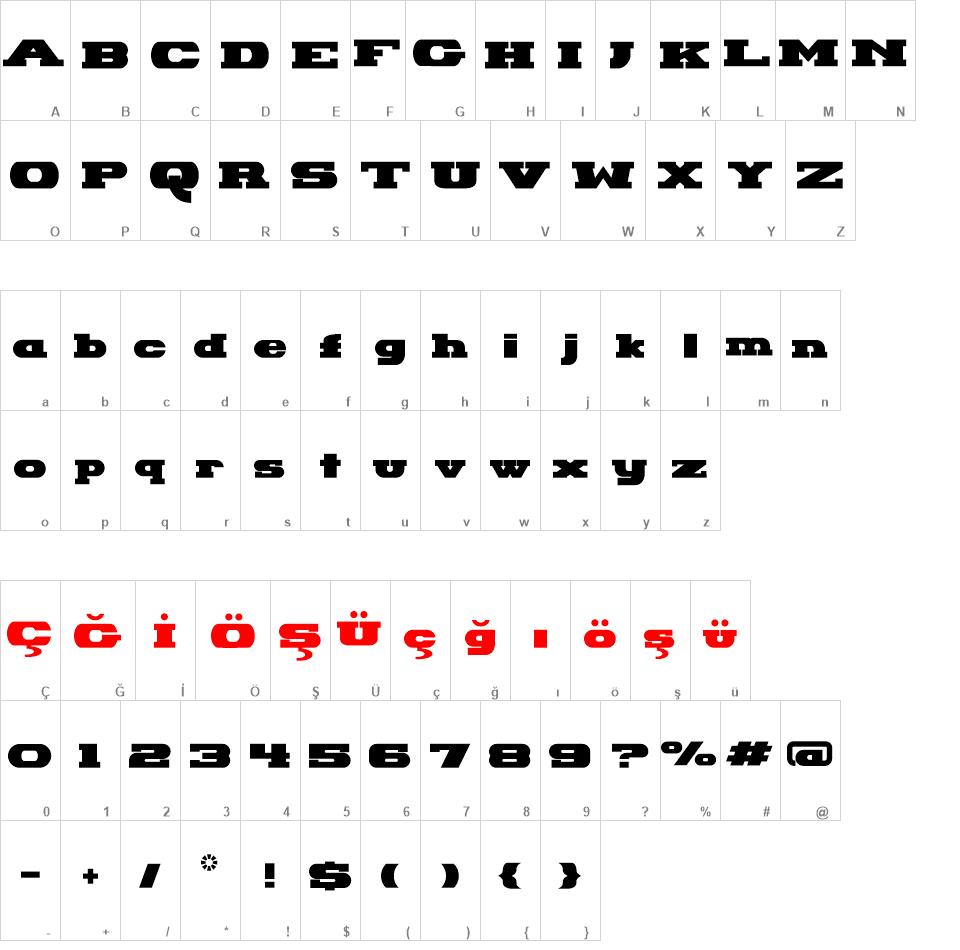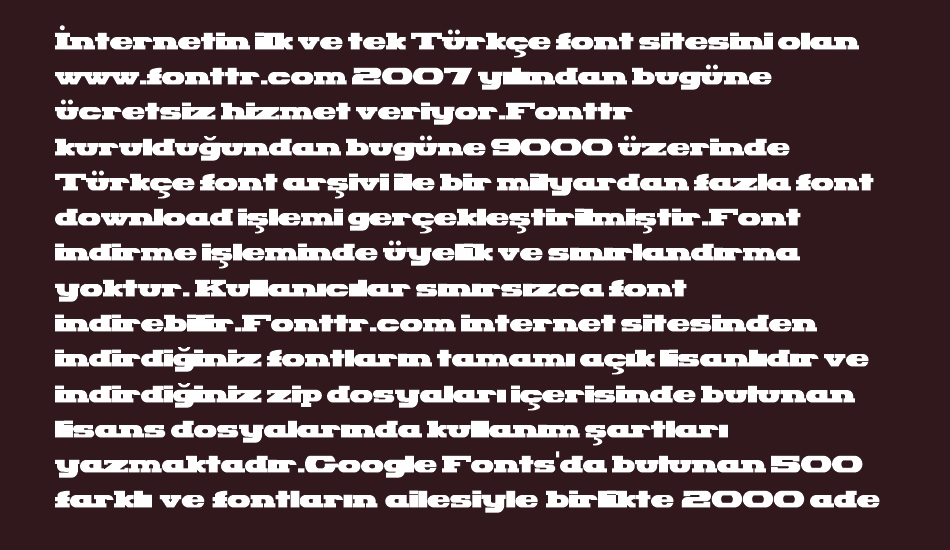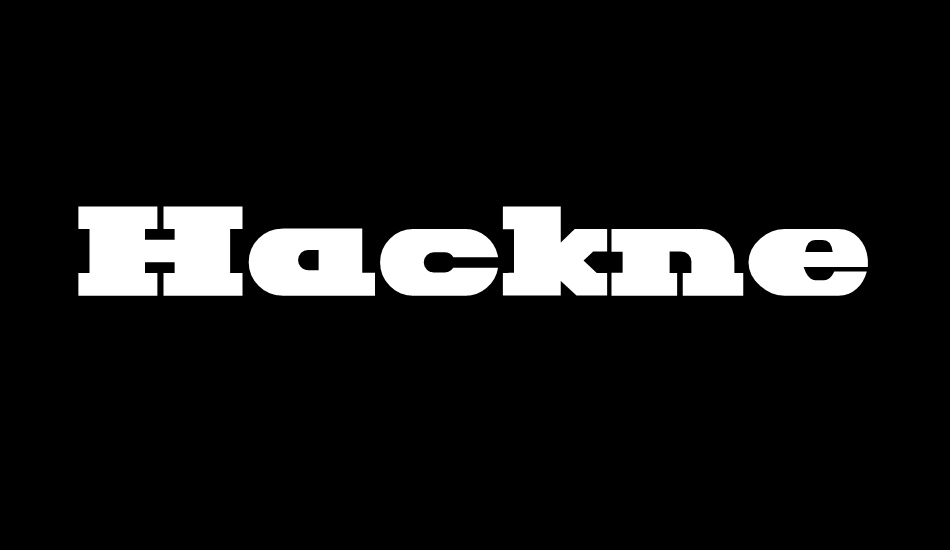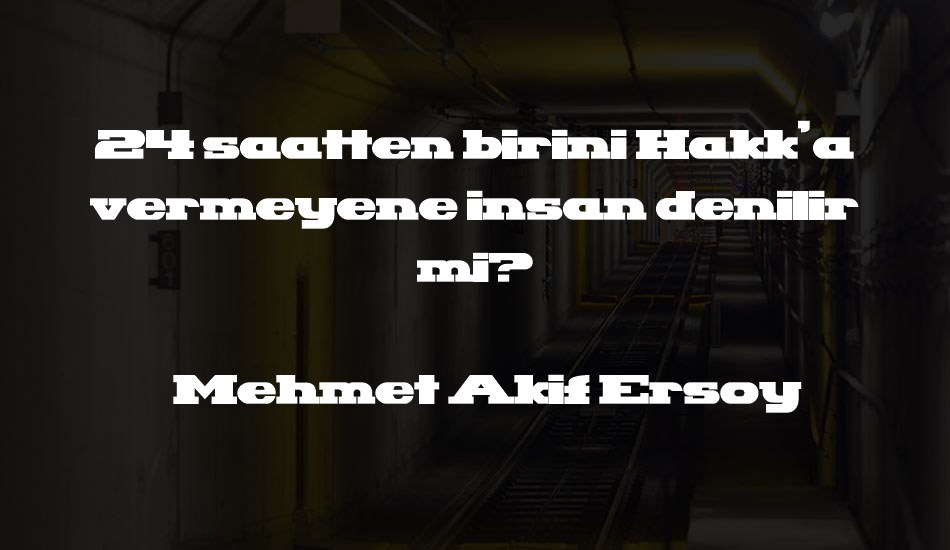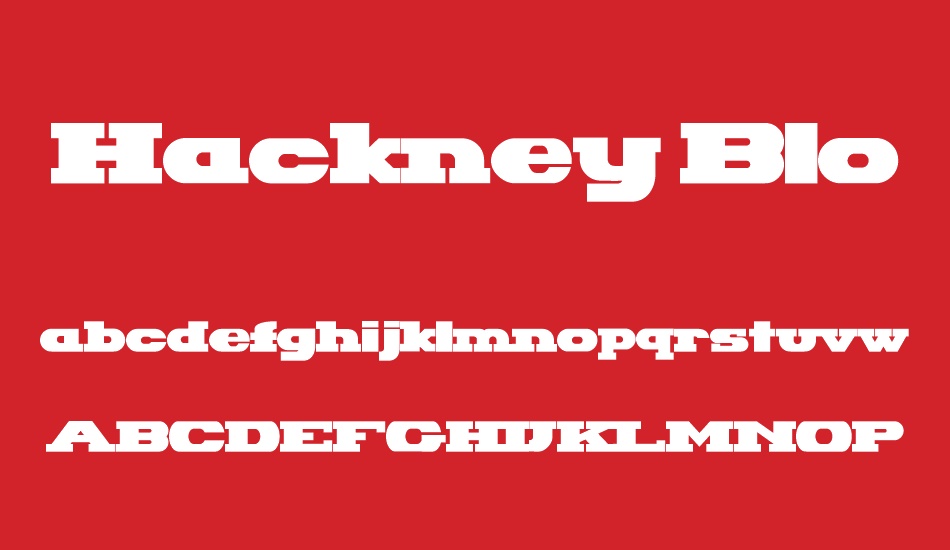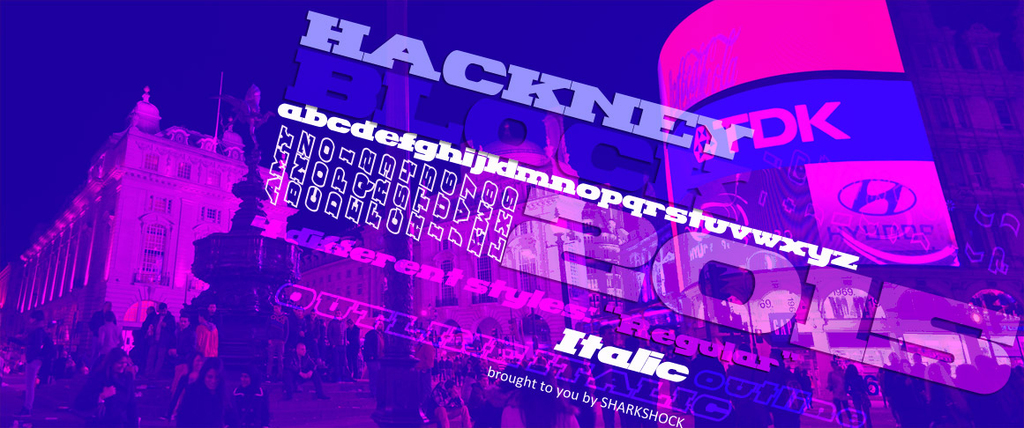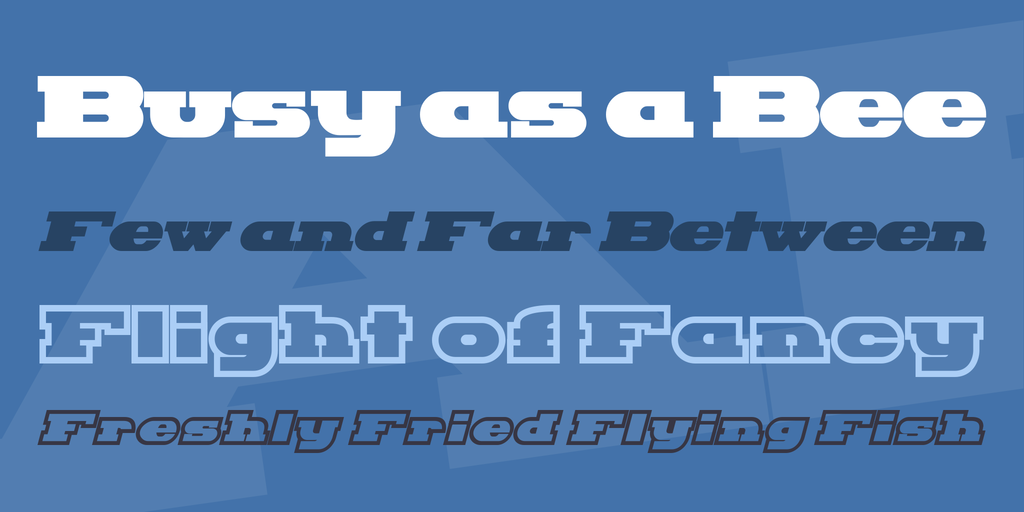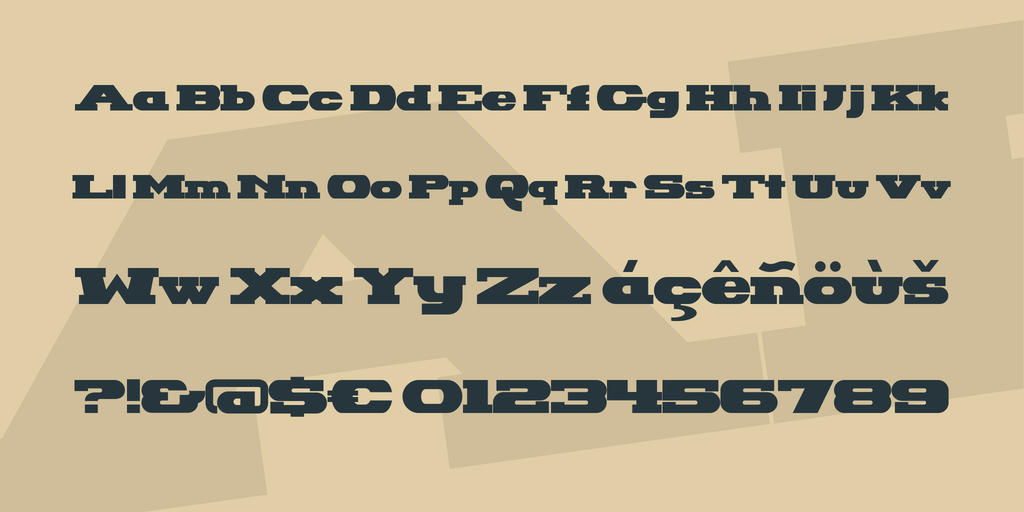
Hackney Block Font Family font
Hackney Block font
Font: Hackney Block (Regular, Italic, Outline, Outline Italic)
Hey Everybody meet Hackney Block. There are 4 members in this font family. It's a broad, clean, and consistent typeface that could work in any number of uses. Full punctuation, limited kerning,
and Eastern Europe characters are present. There are over 630 glyphs, most which are available in this initial 1.0 release. Spacing is naturally tight but this can be tweaked if needed with